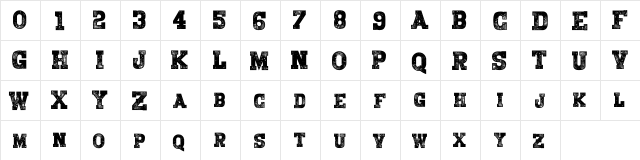
BringMeAWar_Textured Regular
Design Context for BringMeAWar_Textured Typeface
BringMeAWar_Textured trades polish for personality, using distressed and eroded forms to bring grit and attitude to creative work.
A strong fit for alternative music projects, graffiti-adjacent design, and anything that deliberately resists polish.
Pro Tip: Use BringMeAWar_Textured at larger sizes where the texture and irregularity of each letterform can be clearly seen — it loses its character at small sizes.